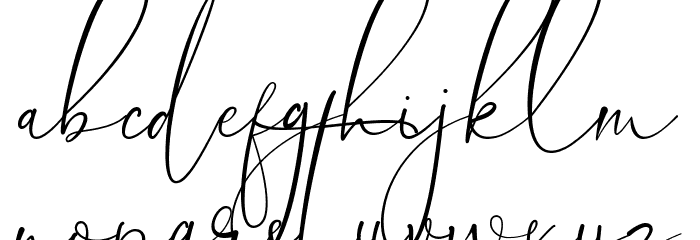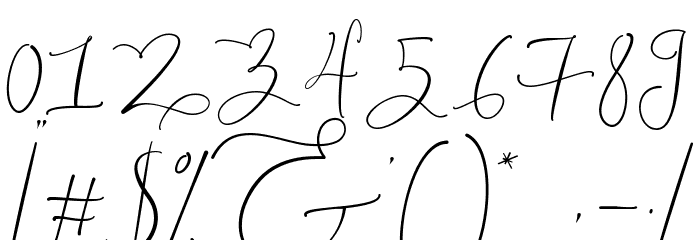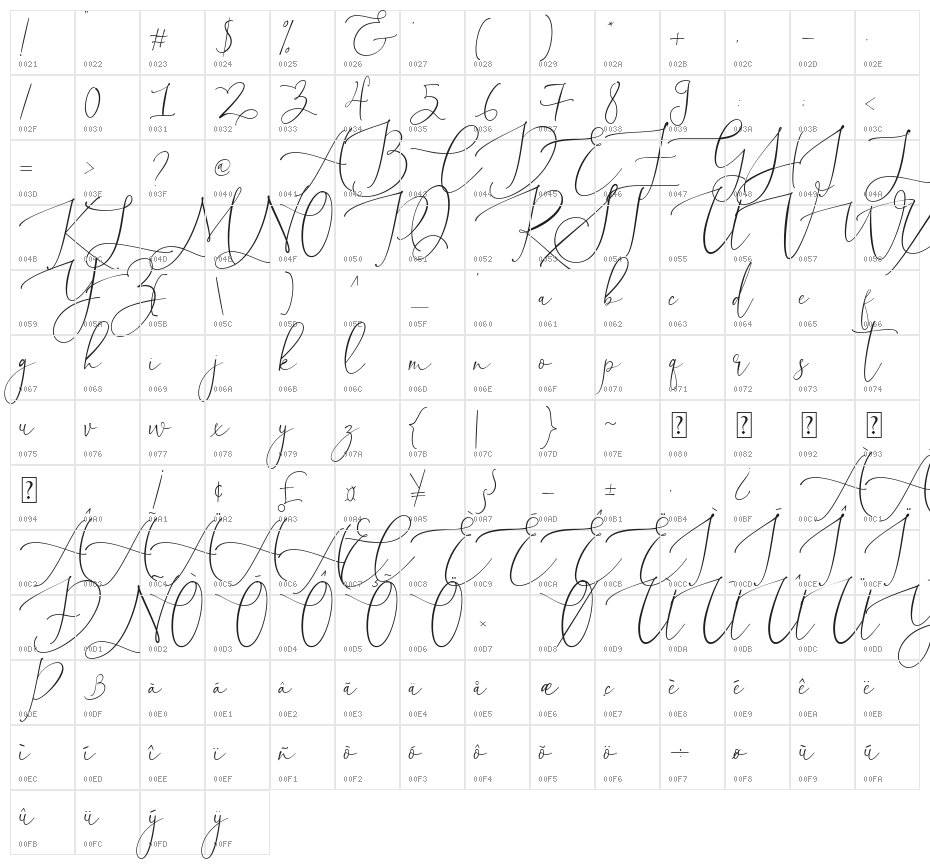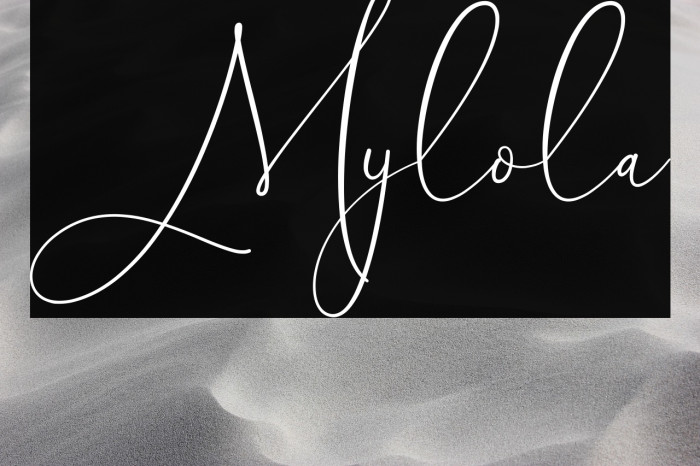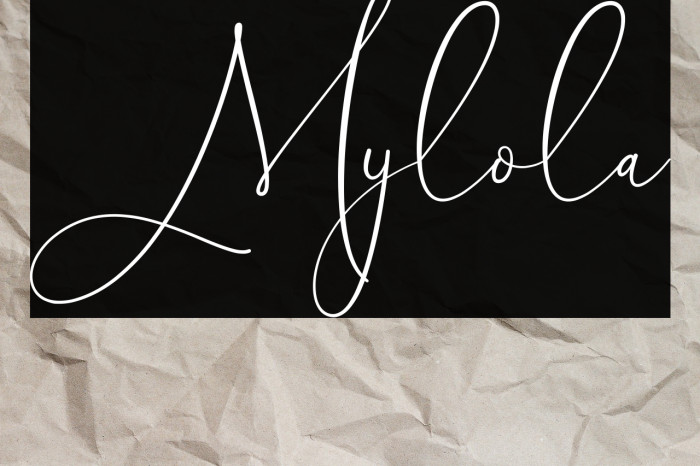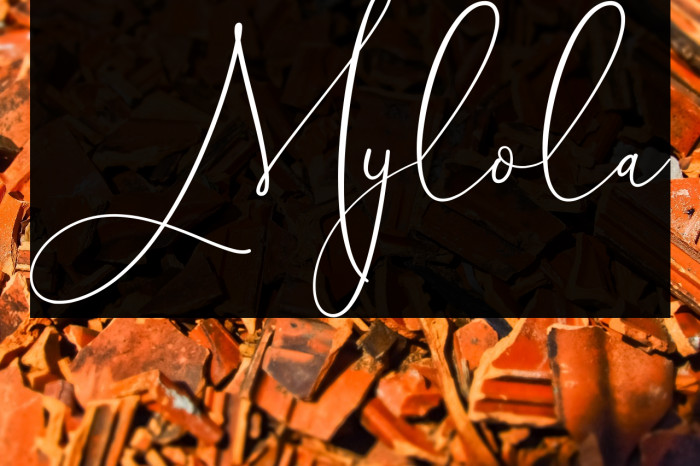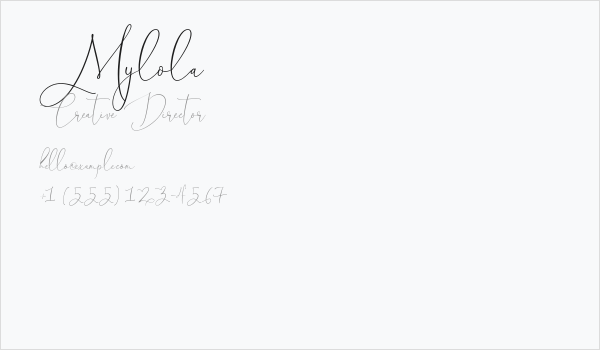
Mylola Font
This font exudes elegance and sophistication with its flowing, cursive style. The uppercase letters are delicately crafted with smooth, sweeping lines that give a sense of fluidity and grace. The lowercase letters maintain this fluidity, with some characters featuring intricate loops and flourishes that add a touch of whimsy. The numerals are consistent with the overall style, featuring similar curves and loops. Special characters are designed with the same attention to detail, ensuring a cohesive look throughout. This font is perfect for projects that require a personal, handwritten touch, such as invitations, greeting cards, or branding materials that aim to convey elegance and creativity.
An elegant, cursive font with flowing lines and intricate flourishes.
- Proposed Projects: Ideal for wedding invitations, greeting cards, personal branding, and creative projects requiring a handwritten touch.
- Category: Script
- Overall Style: Elegant, Handwritten
- Use Case: Invitations, Greeting cards, Branding